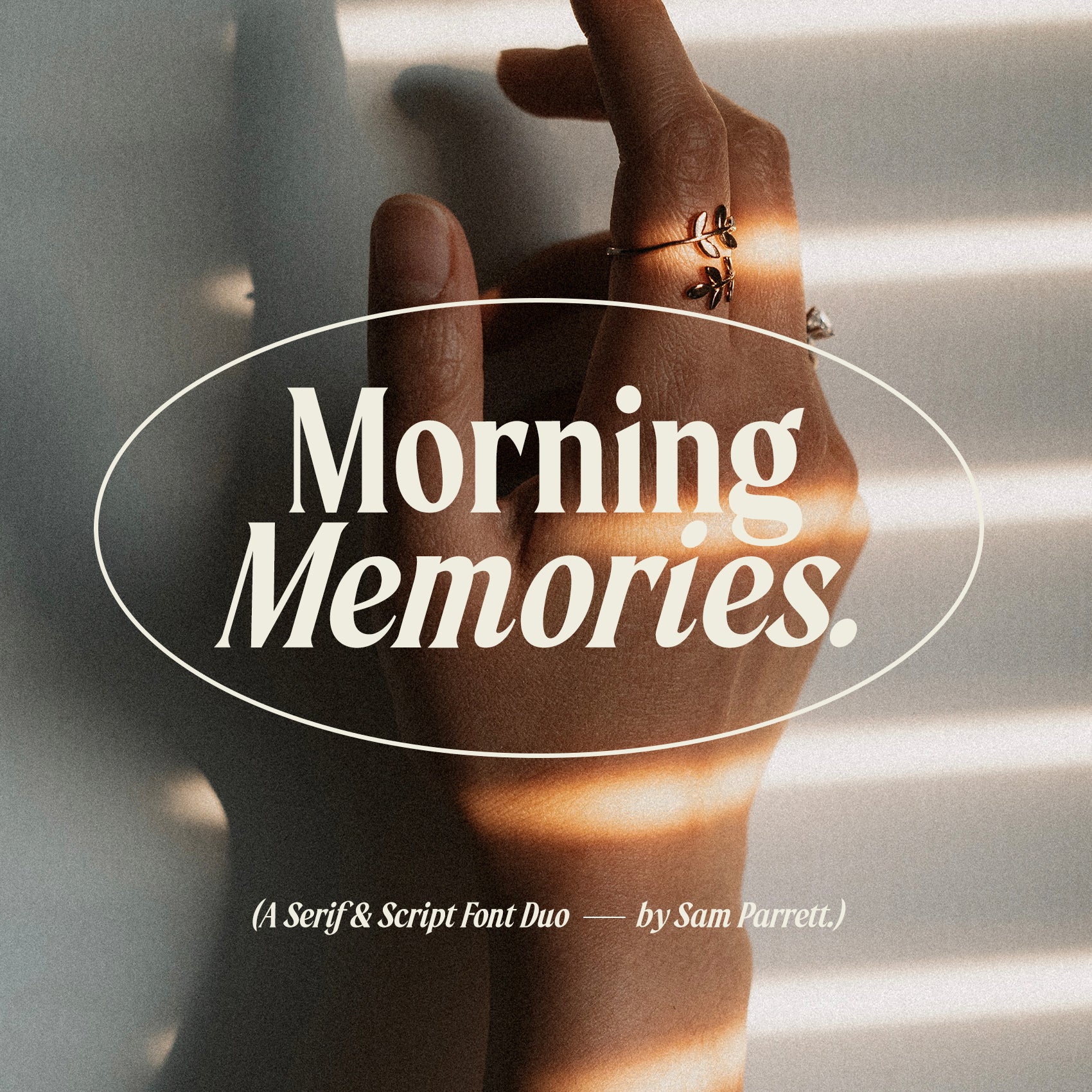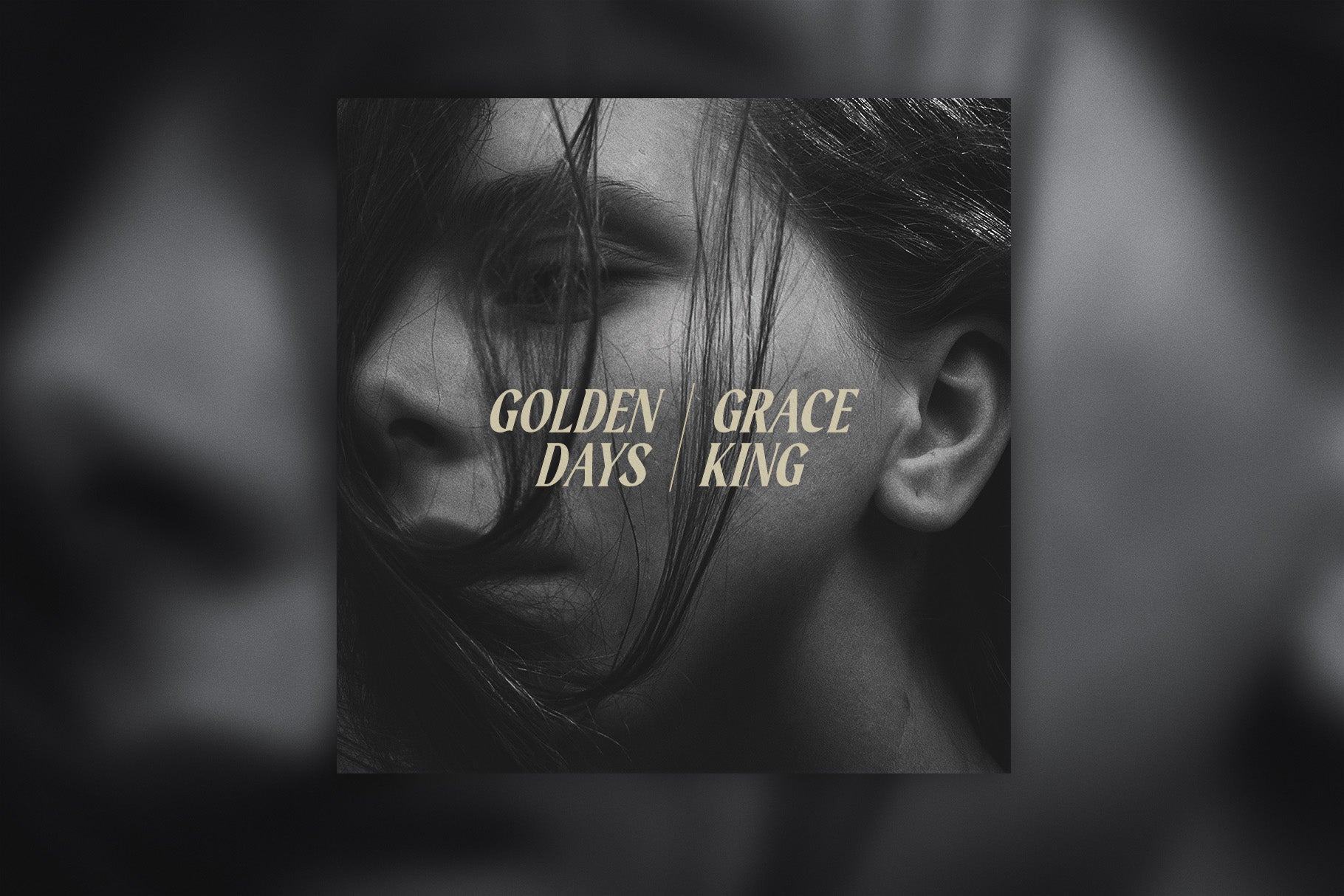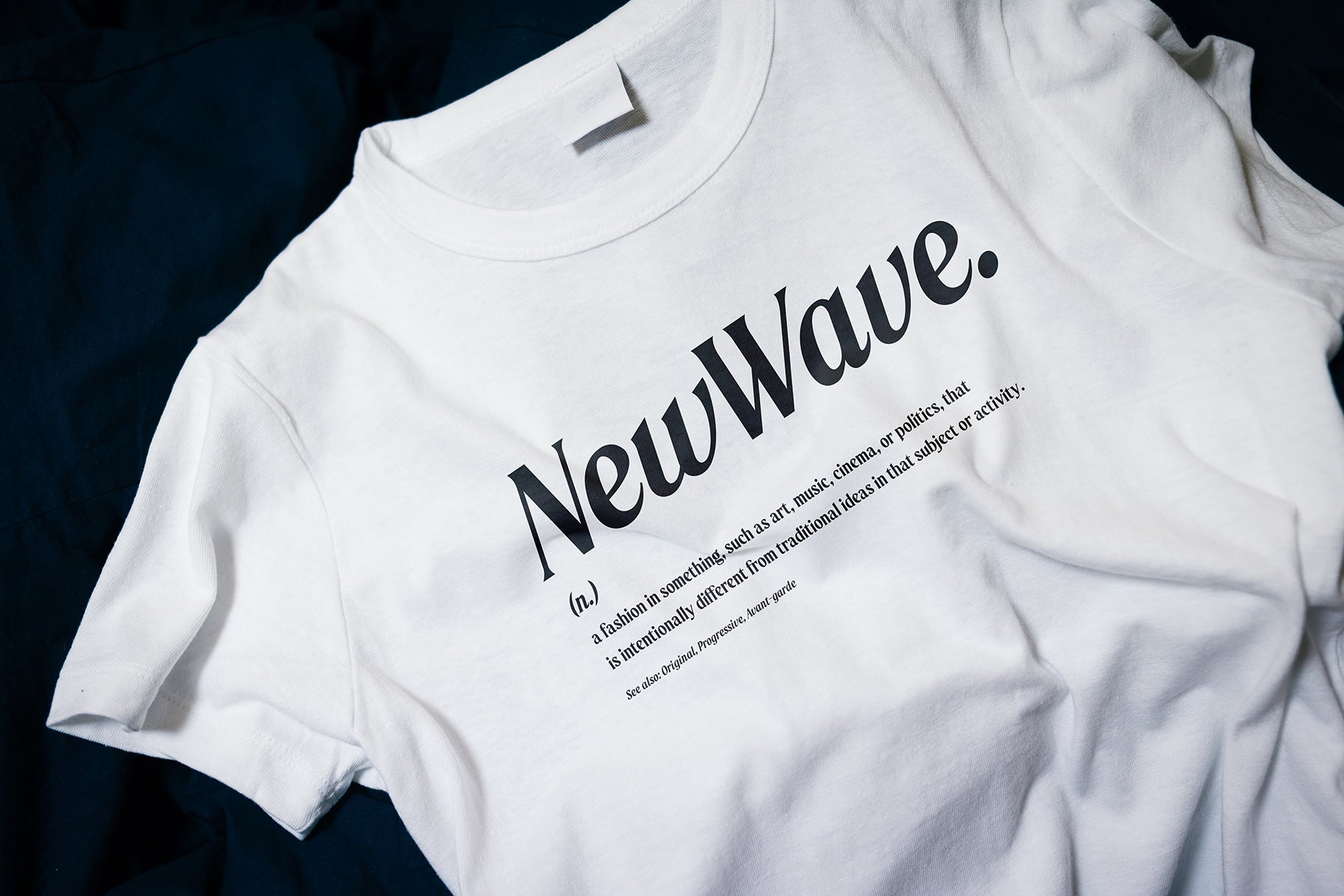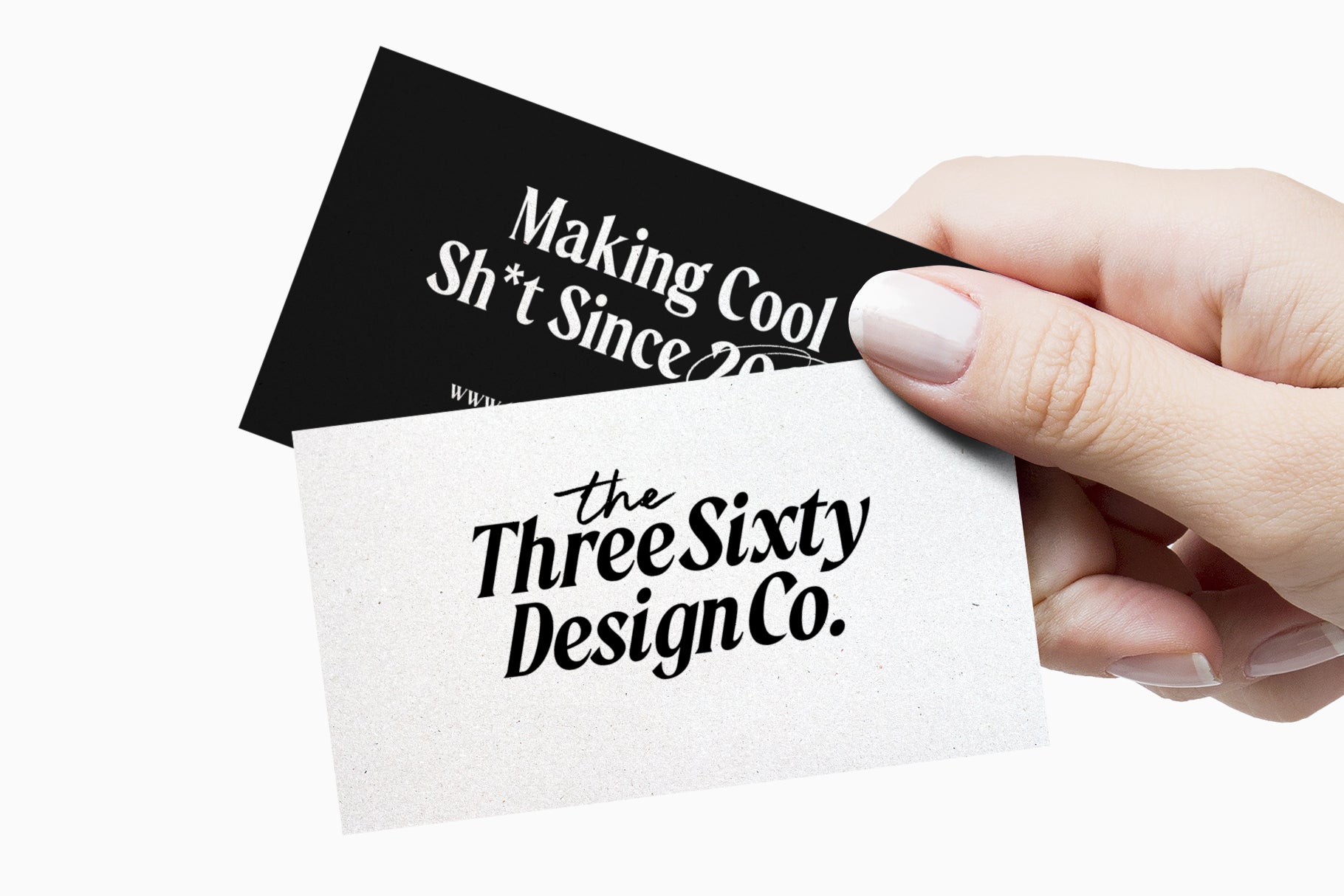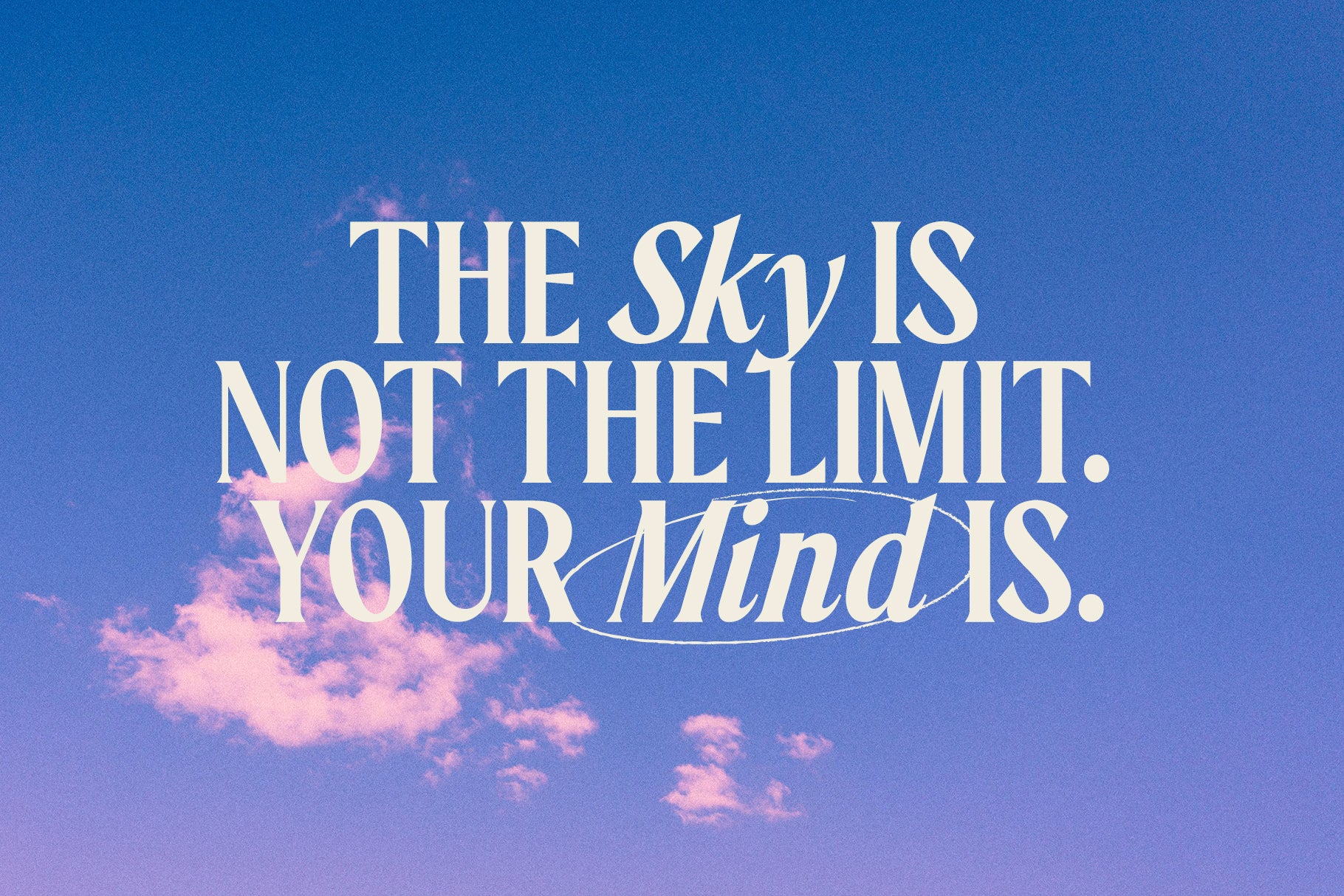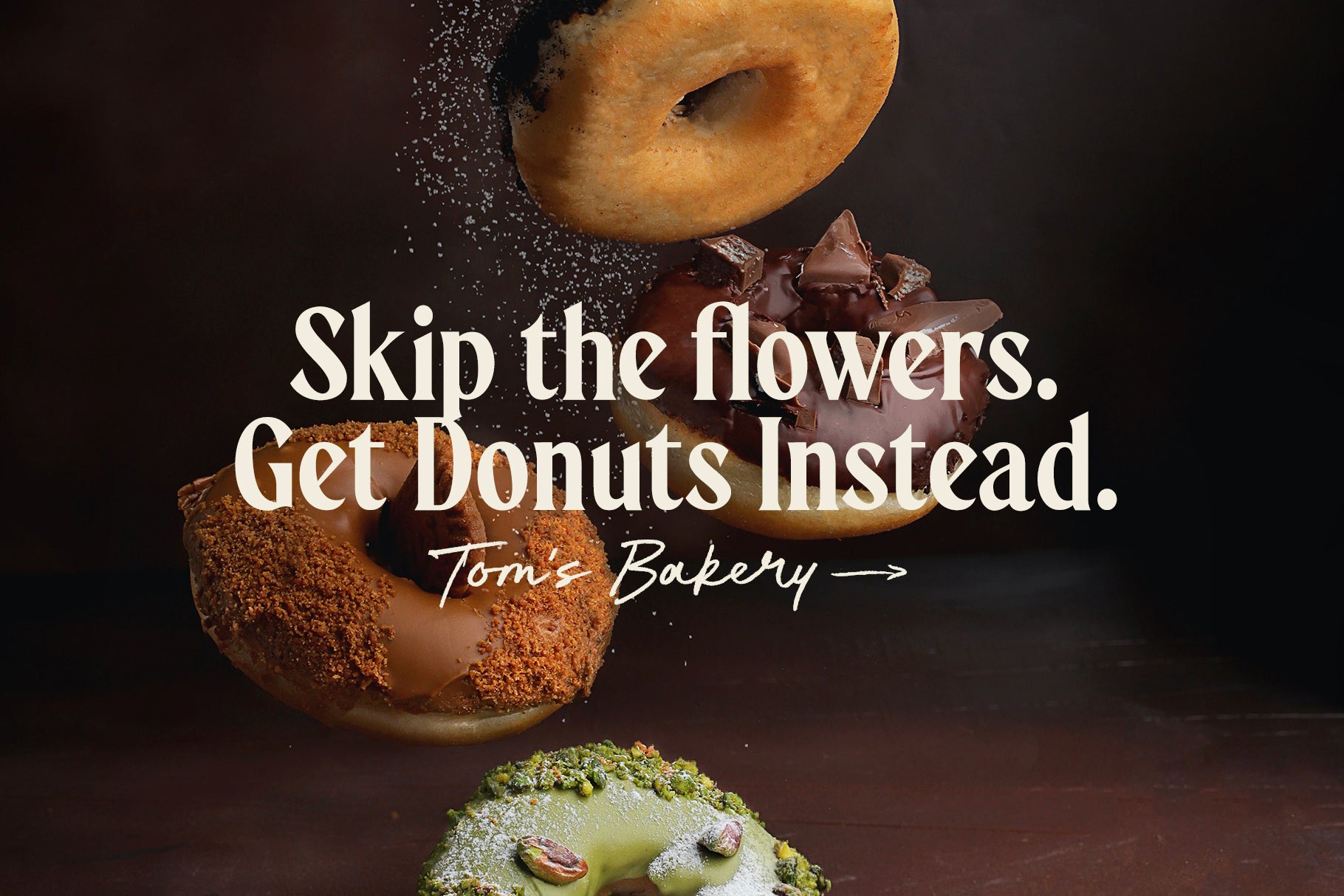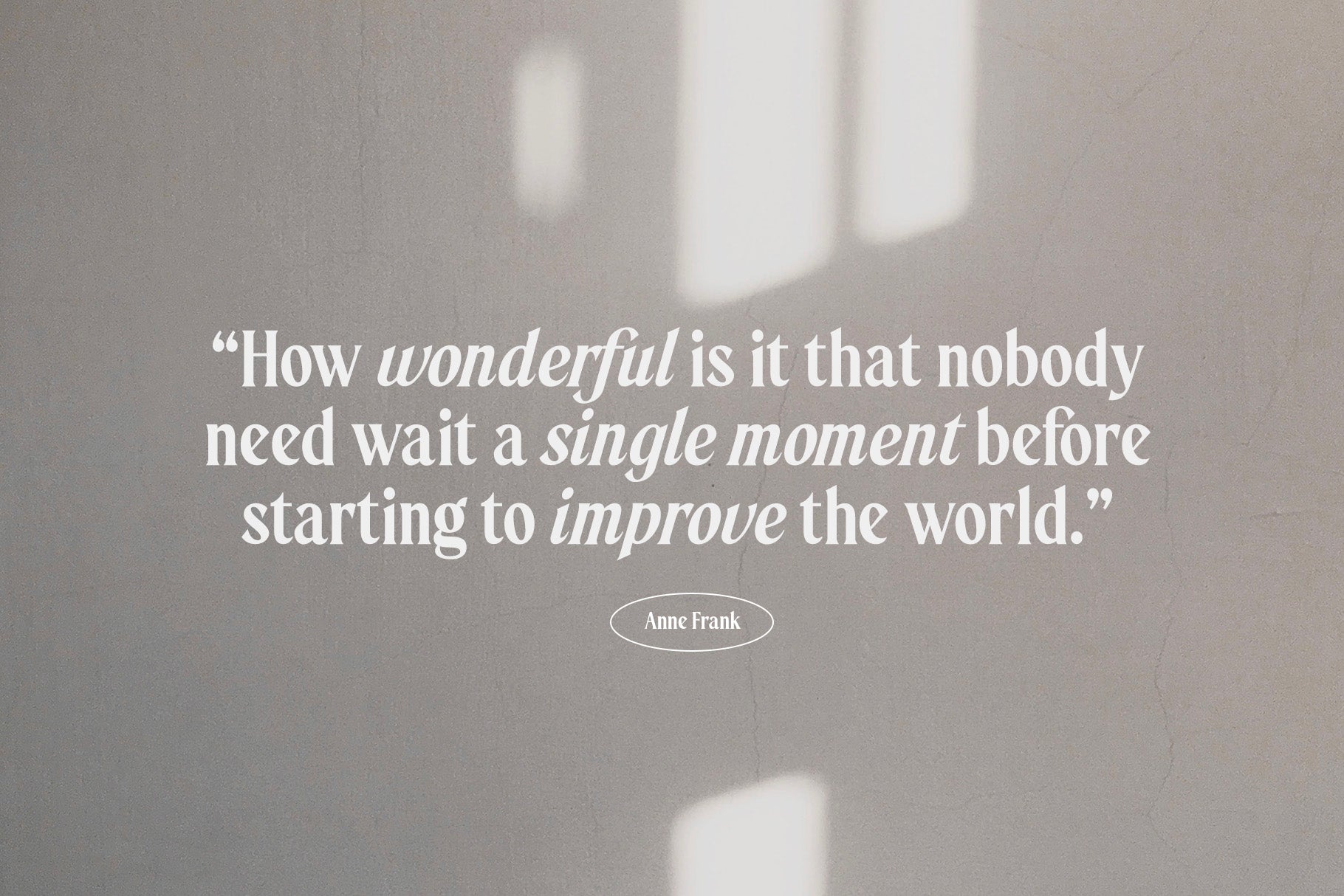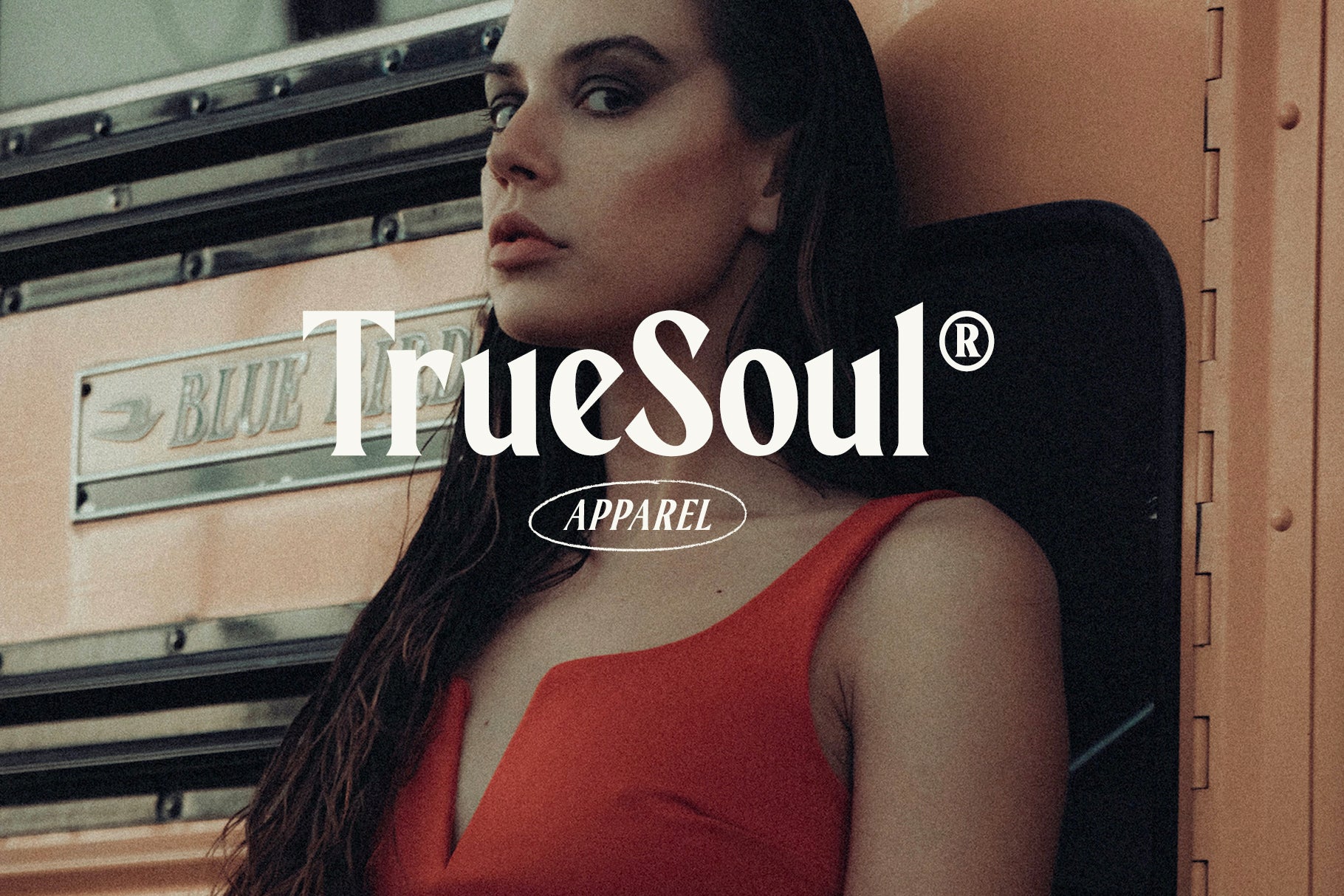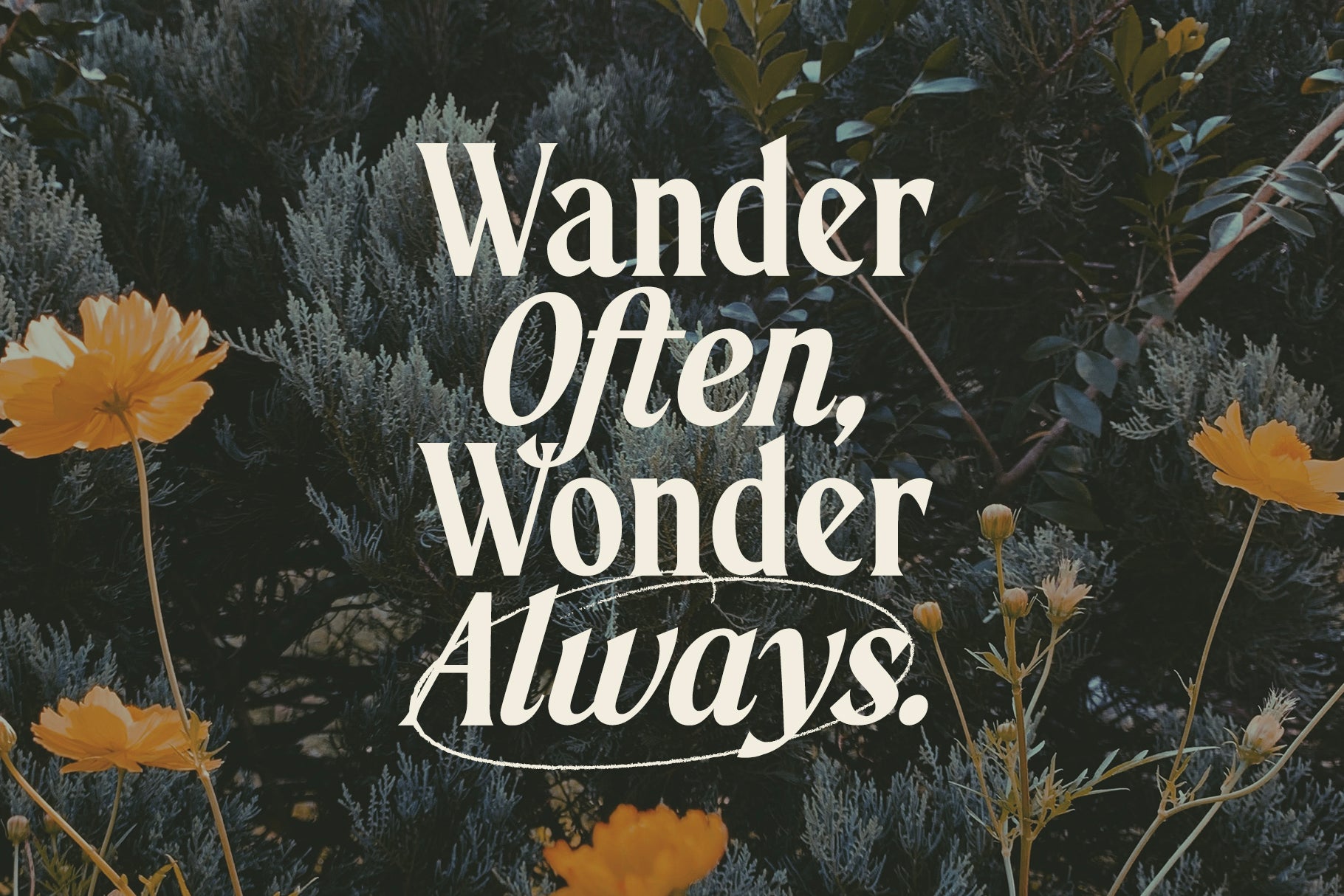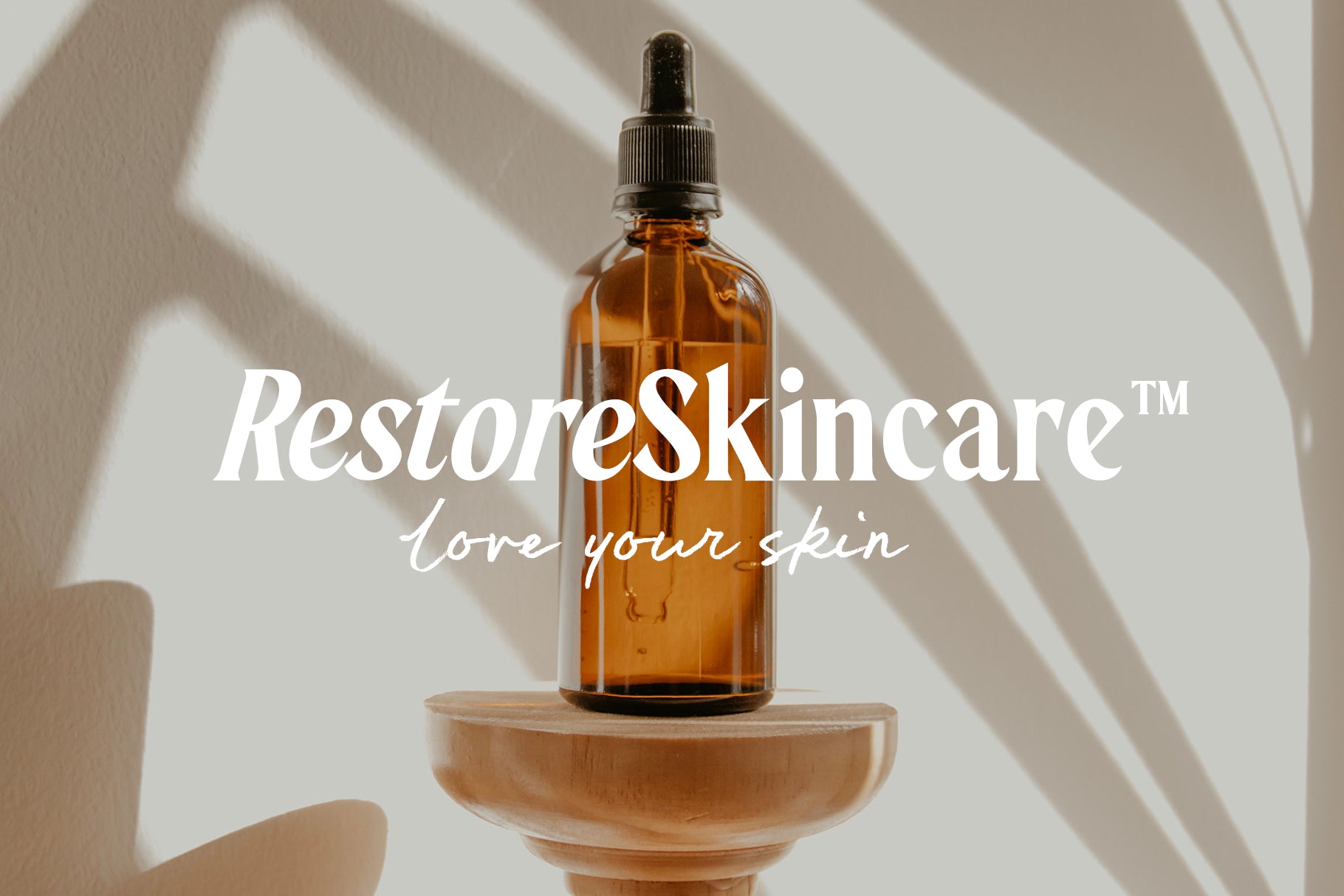
Morning Memories Font Duo
The Morning Memories Font Duo includes the bold, condensed Morning Memories Serif with regular and italic versions, alongside the handwritten Morning Memories Script featuring 36 ligatures for fluid text. Additionally, it comes with the Morning Memories Doodles font, which offers 26 hand-drawn elements for added emphasis. This font duo supports multiple languages, including English, French, Spanish, and more.